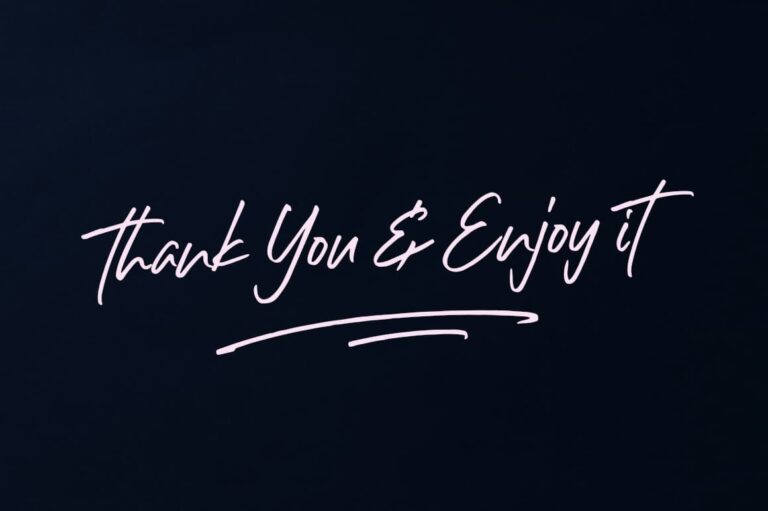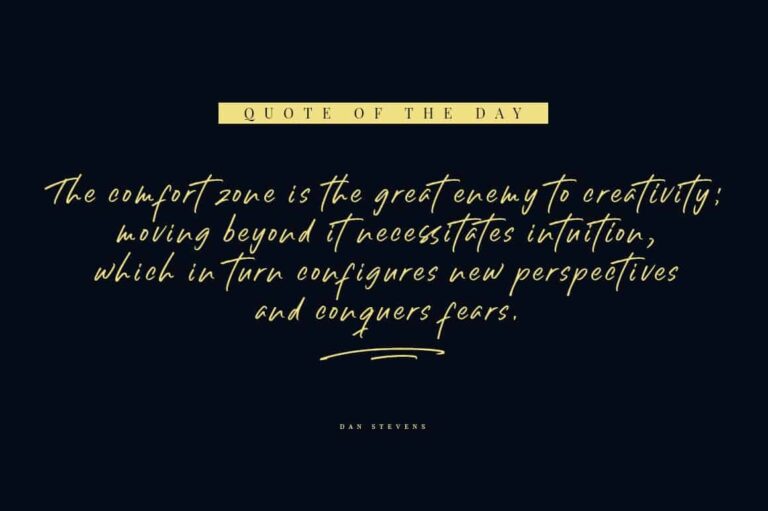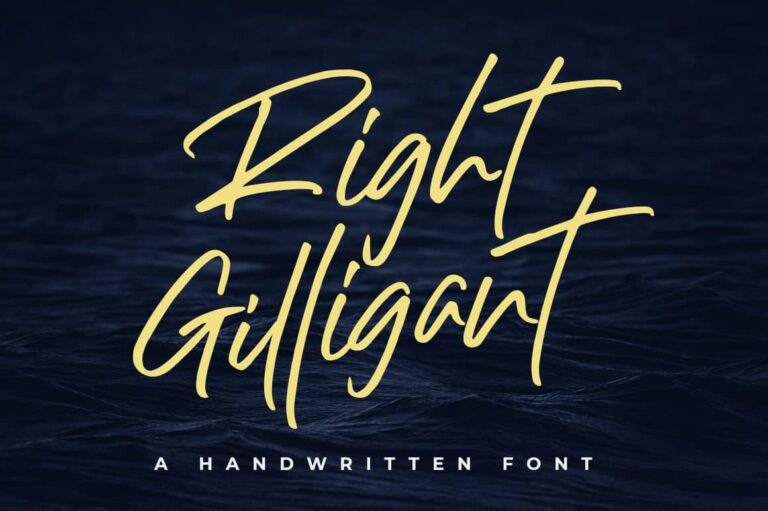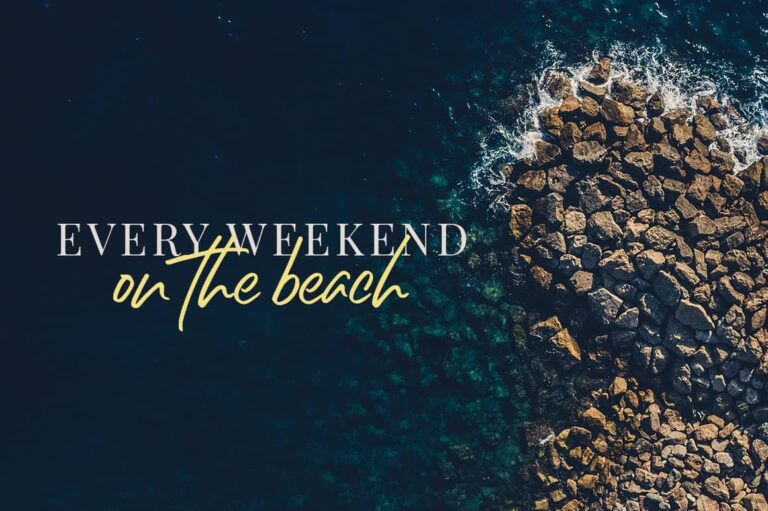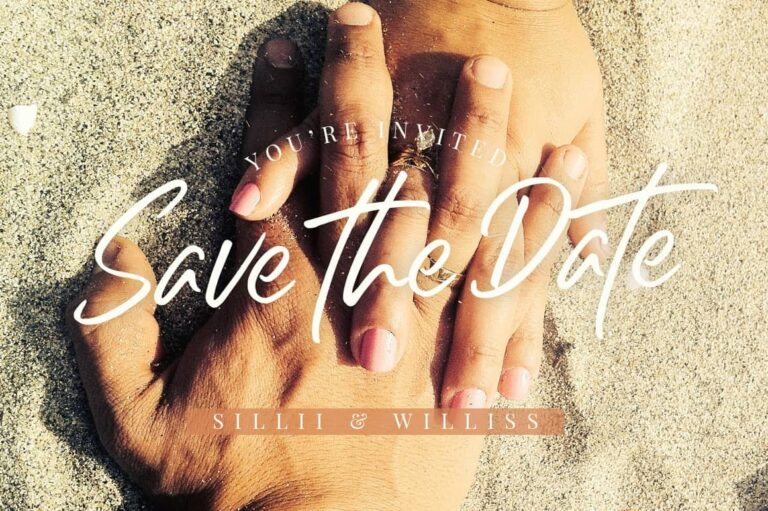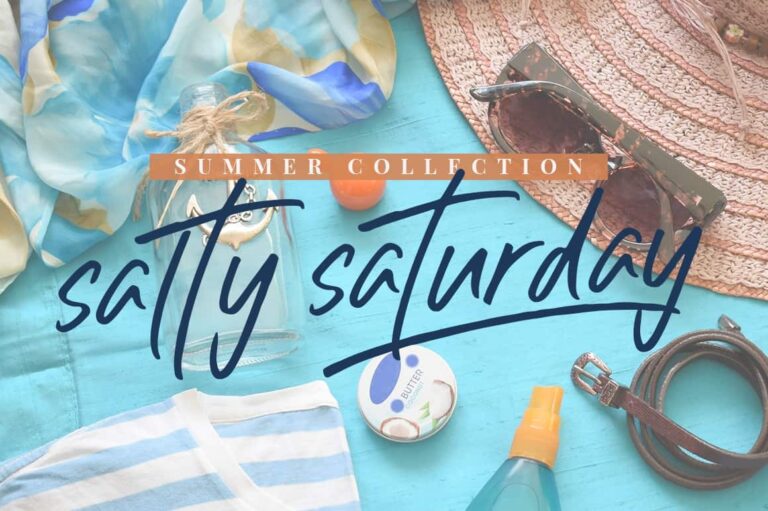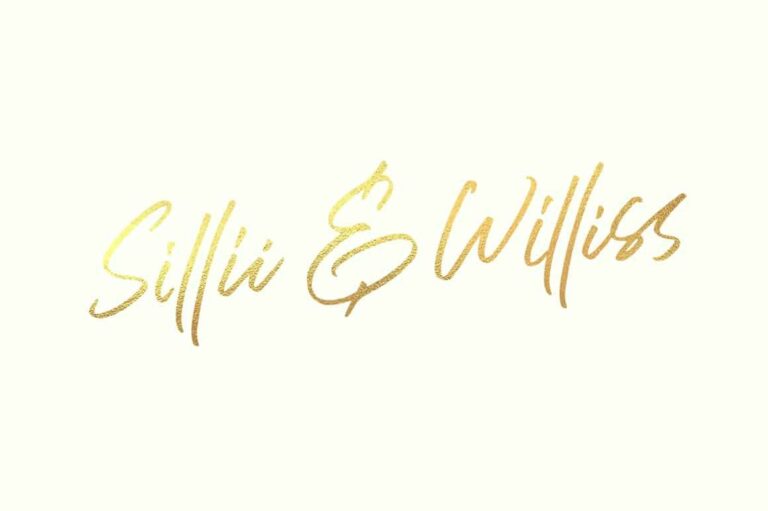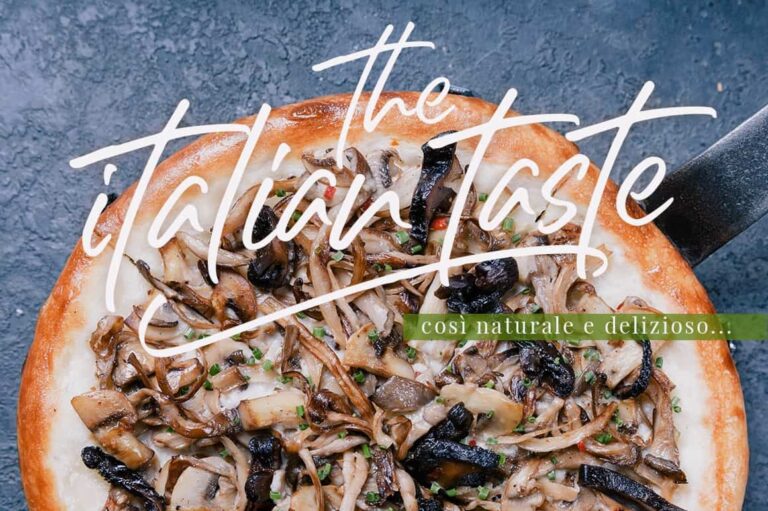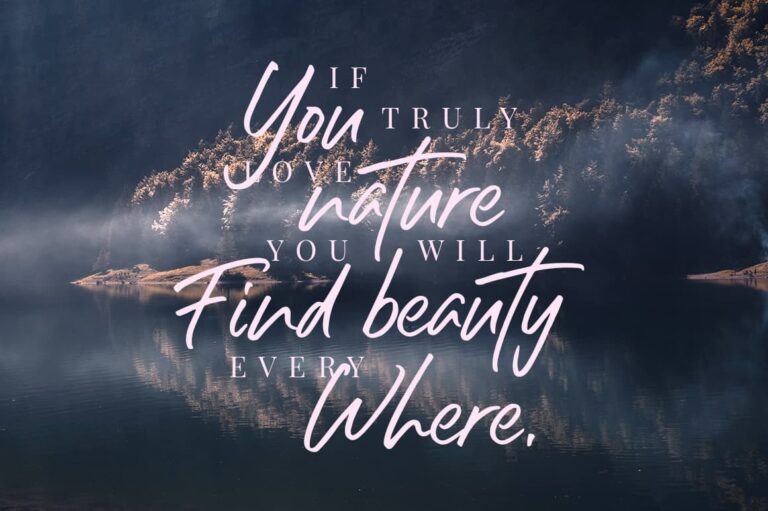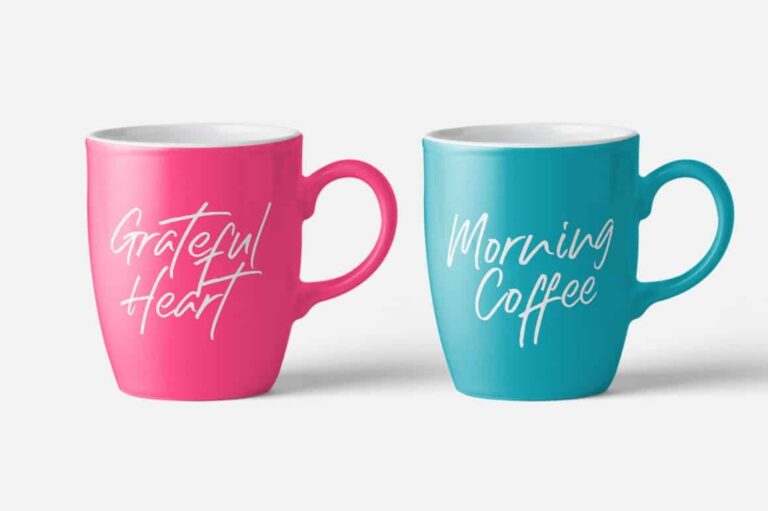
- Right Gilligant
Presenting Right Gilligant! A Handwritten Font with natural scratches. This font made with perfect combining of each characters. It looks original and can be used for all your project needs. Each glyph has its own uniqueness and when meeting with others will provide a dynamic and pleasing proximity. This font can be used at any time and any project. You can see in the presentation picture above, Right Gilligant looks natural on design projects.
So, Right Gilligant can’t wait to give its touch to all your design projects such as quotes, wedding invitation, personal branding, promotional materials, overlay on the picture, product packaging, etc.
Besides that, Right Gilligant also has some ligature that gives a surprise when you type certain characters combining. The ligatures are bb cc ff gg ii jj ll mm nn oo rr ss tt vv lt tl
1. Right Gilligant Font • It comes with uppercase, lowercase, ligatures, numeral, punctuation, symbols, multilingual support (Afrikaans, Albanian, Catalan, Danish, Dutch, English, Estonian, Finnish, French, German, Icelandic, Indonesian, Italian, Malay, Norwegian, Portuguese, Spanish, Swedish, Zulu, and Many More), and some alternate glyphs; i, g, t.
2. Extra Swashes • It comes with 15 underline swashes. Just type S_1 until S_15 to feature it. It can make your designs more awesome.